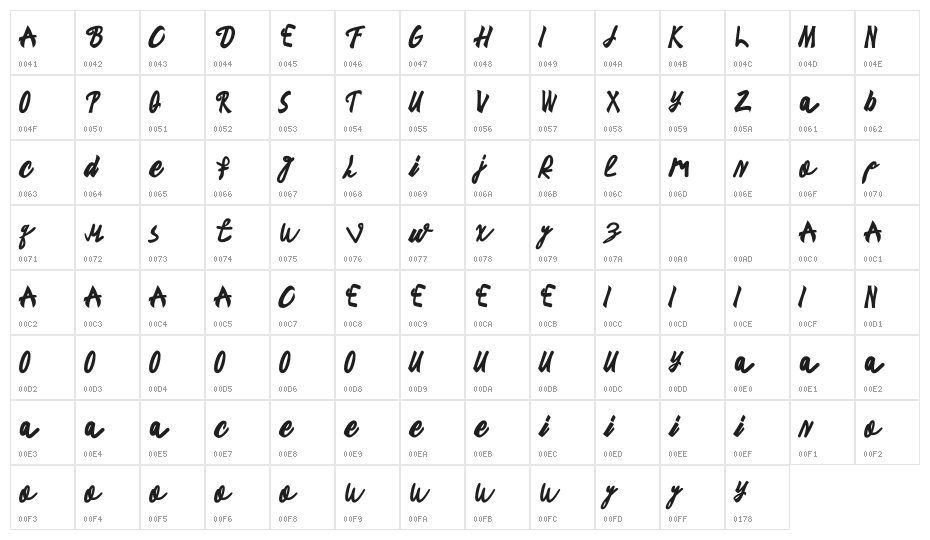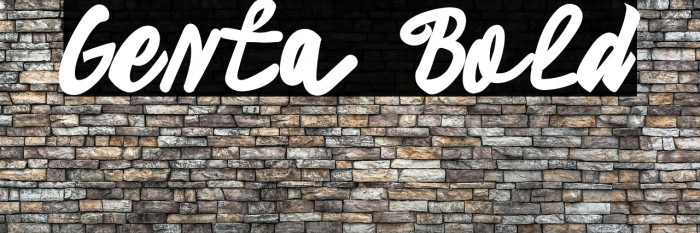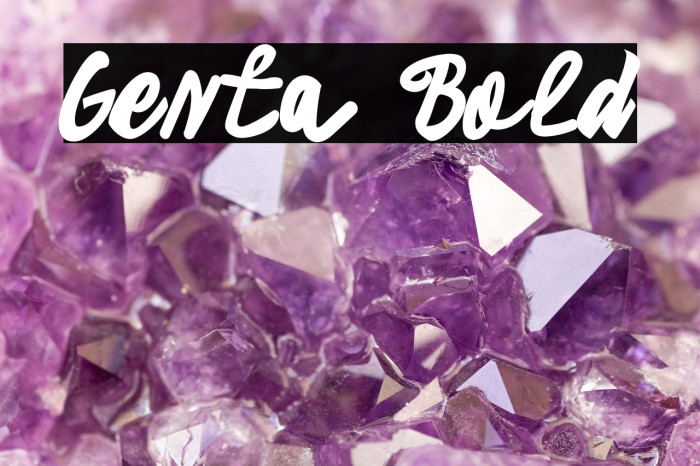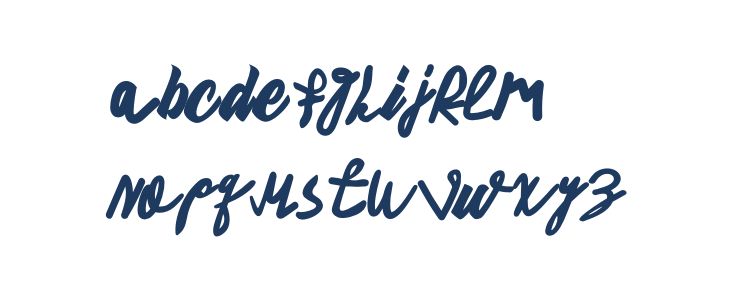
Genta Bold Font
Genta Bold Description
This bold script font exudes a dynamic and expressive style, characterized by its fluid, cursive strokes and a sense of movement. The uppercase letters are bold and confident, with a slight slant that adds to the energetic feel. The lowercase letters maintain a consistent flow, enhancing readability while preserving the artistic flair. The font's thick strokes and smooth curves create a harmonious balance, making it suitable for designs that require a touch of elegance and boldness. The absence of special characters suggests a focus on alphabetic expression, ideal for creative projects.